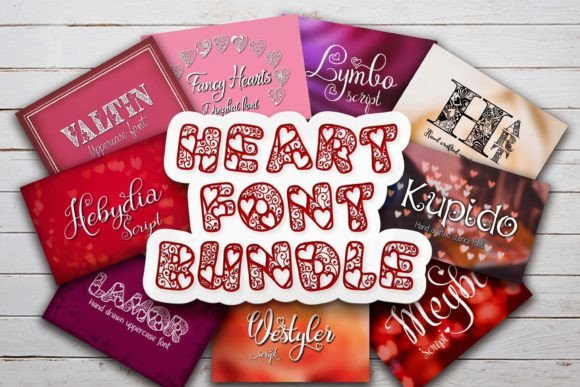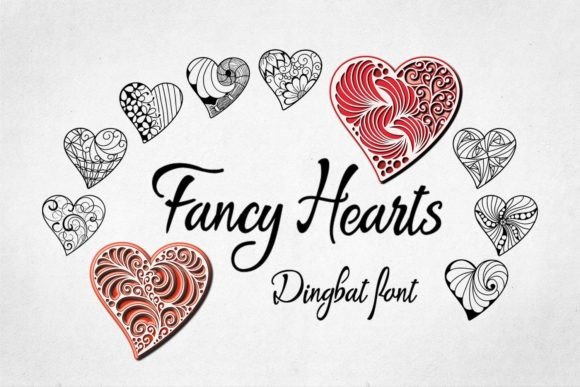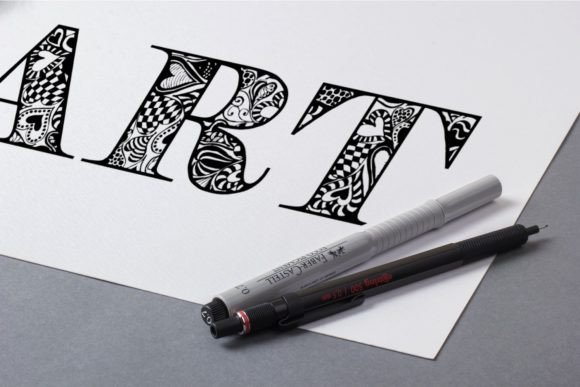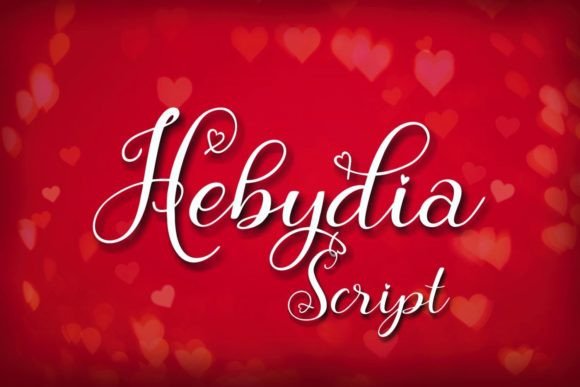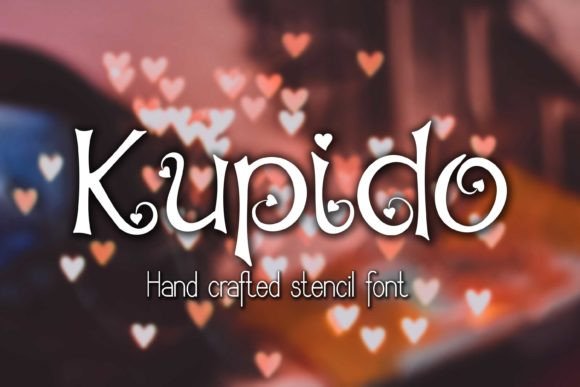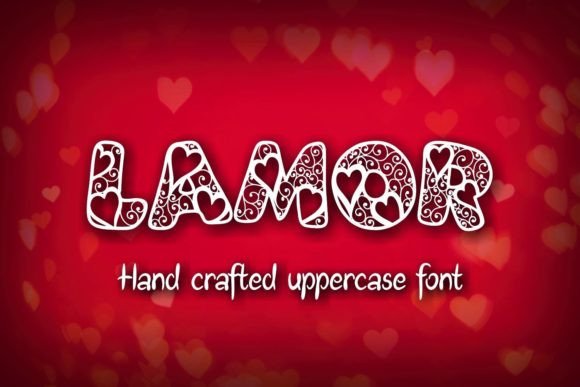
Introduction to Heart Collection Font
Heart Collection is a stunning and sophisticated font that exudes elegance and refinement.
Its delicate swirls and flourishes make it perfect for wedding invitations, branding, and other designs that require a touch of sophistication .
Key Features of Heart Collection Font
Why Choose Heart Collection Font?